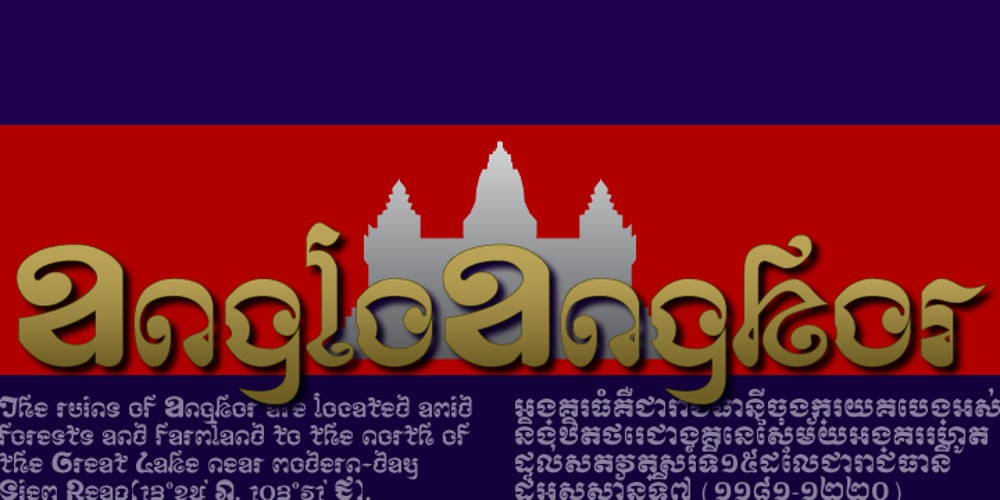
AngloAngkor Font Family was designed by Martin L. Parker and published by Parquillian Design. AngloAngkor contains 2 styles and family package options. AngloAngkor is a display face of Western characters inspired by the elegant “round script” style of the Khmer alphabet of Cambodia. It is the first of a projected series inspired by some of the beautiful lesser-known native scripts of Southeast Asia.